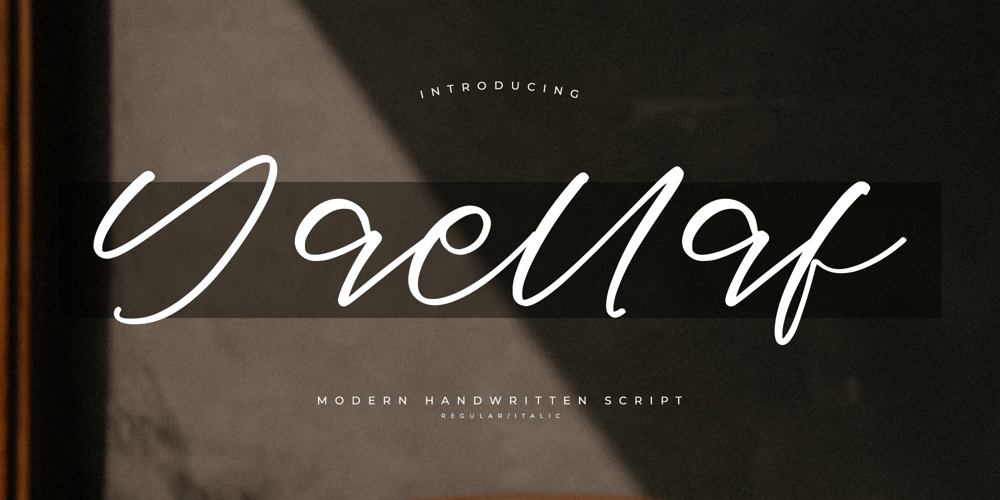
Yaellaf Font Family was designed by Heru Utama Putra and published by Letterena Studios. Yaellaf contains 2 styles and family package options. Yaellaf is a modern and stylish handwritten script font. With its elegant strokes and contemporary flair, it adds sophistication to invitations, branding materials, and social media graphics. Its fluidity and charm bring a touch of brightness to any design project, making it truly versatile and captivating.